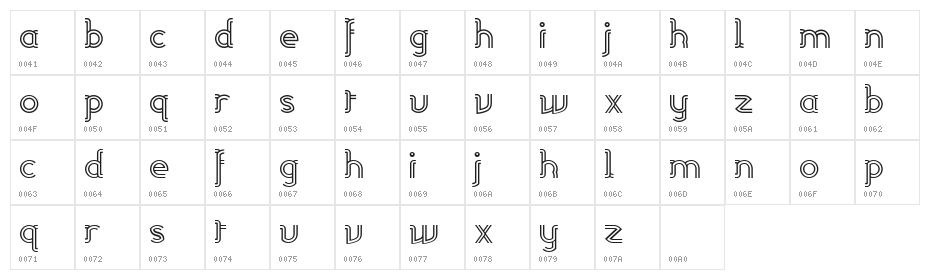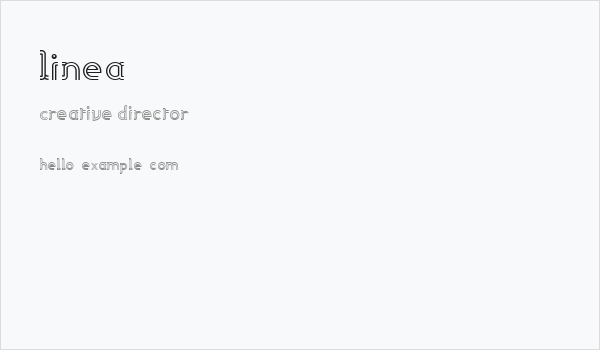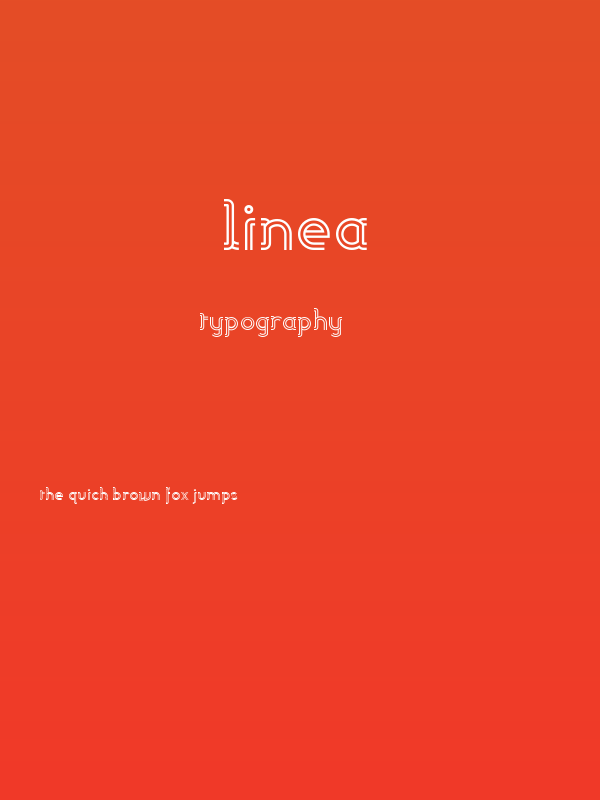
Linea Font
Linea Description
This font features a unique, double-line design that gives it a modern and futuristic appearance. Each character is outlined with a consistent double stroke, creating a hollow effect that adds depth and dimension. The font maintains a geometric structure with clean, straight lines and sharp angles, while the rounded edges soften the overall look. The uniformity in stroke width across all characters ensures a balanced and harmonious appearance. This font is particularly eye-catching and stands out due to its distinctive style, making it suitable for creative and artistic projects.
| Use Case | Logos, Posters, Digital Media |
| Proposed Projects | Ideal for branding, logos, posters, and digital media where a modern and creative look is desired. |